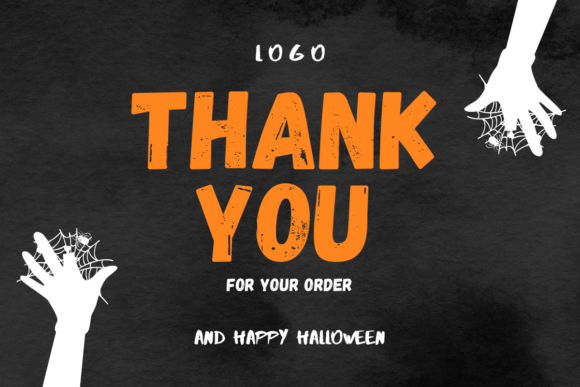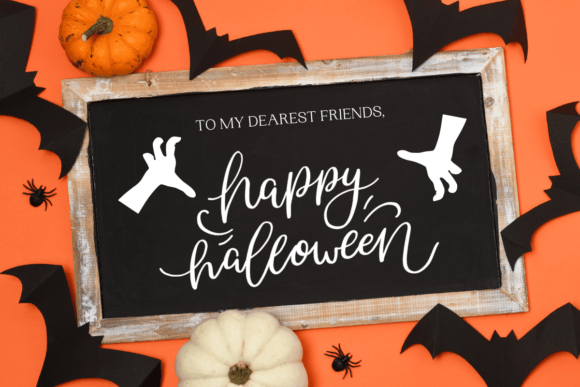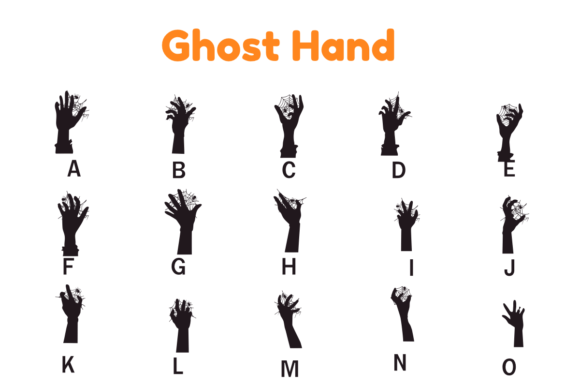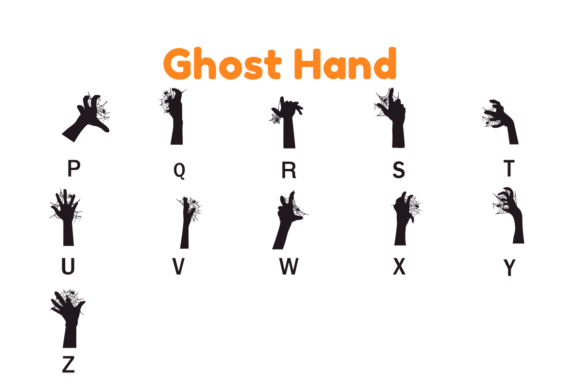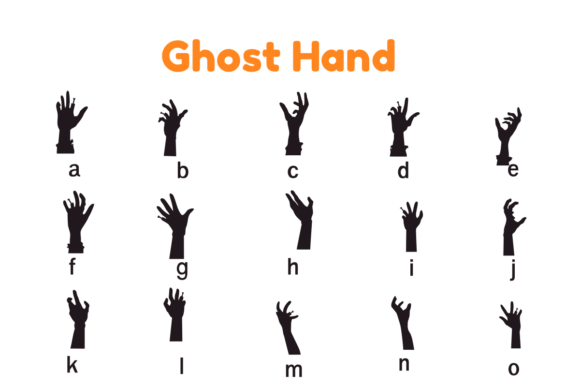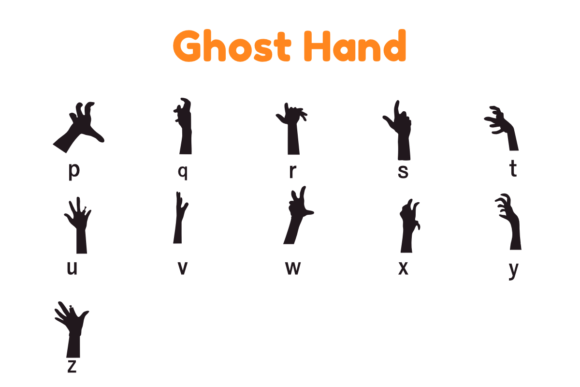
Unleash the Spook: Exploring the Creepy Charm of Ghost Hand Font
As the witching hour approaches, designers and crafters are on the lookout for unique and eerie elements to add a touch of spookiness to their projects. If you’re searching for a font that embodies the creepy and mysterious atmosphere of Halloween or haunted themes, look no further than the Ghost Hand Font. This dingbat font features hands with spider webs on the fingers, exuding a sense of eeriness that’s sure to send shivers down the spine.
The Creepy Concept: Hands with Spider Webs
The Ghost Hand Font takes a simple yet effective approach to creating a spooky design. The font features illustrations of hands with spider webs delicately woven around the fingers. The hands themselves have a haunting appearance, with a subtle skeletal undertone that adds to the overall creepiness. The spider webs, intricately designed and scattered across the fingers, bring an air of mystery and foreboding to the font.
Perfect for Halloween and Haunted Themes
Halloween and haunted themes are all about creating an atmosphere of suspense and fear. The Ghost Hand Font is tailor-made for such projects, providing a unique and eerie element that will leave your audience with a lasting impression. Whether you’re designing invitations, posters, or social media graphics, this font is sure to add a touch of macabre charm to your work.
Unique and Versatile Design
One of the standout features of the Ghost Hand Font is its versatility. The font can be used in a variety of contexts, from bold and eye-catching headlines to more subtle and intricate designs. The hands and spider webs can be scaled up or down, allowing you to experiment with different layouts and compositions. Additionally, the font can be paired with a range of other design elements, such as creepy imagery, textures, and colors, to create a truly one-of-a-kind look.
Applications for Designers and Crafters
The Ghost Hand Font offers a wealth of creative possibilities for designers and crafters. Here are a few ideas to get you started:
- Halloween Invitations: Create spooky and inviting Halloween invitations featuring the Ghost Hand Font. Pair the font with eerie imagery, such as jack-o’-lanterns, bats, or spiders, to set the tone for a howling good time.
- Haunted House Marketing: Use the Ghost Hand Font to create eye-catching marketing materials for haunted houses or haunted attractions. The font’s creepy charm is sure to grab attention and entice thrill-seekers to visit.
- Creepy Crafts: The Ghost Hand Font is perfect for crafters who enjoy making spooky decorations, such as Halloween cards, gift tags, or scrapbook pages. Use the font to add a personal touch to your crafts and make them stand out.
- Social Media Graphics: Create spooky social media graphics featuring the Ghost Hand Font. Use the font to create attention-grabbing headlines or captions that will leave your followers shivering with delight.
Tips for Using the Ghost Hand Font
To get the most out of the Ghost Hand Font, here are a few tips to keep in mind:
- Experiment with Sizes: Don’t be afraid to experiment with different font sizes to create visual interest. Large, bold hands can make a dramatic statement, while smaller, more intricate designs can add a touch of subtlety.
- Pair with Other Design Elements: The Ghost Hand Font is versatile and can be paired with a range of other design elements, such as images, textures, and colors. Experiment with different combinations to create a unique look.
- Use in Combination with Other Fonts: The Ghost Hand Font can be used in combination with other fonts to create a striking contrast. Try pairing it with a bold, sans-serif font for a jarring effect.
The Ghost Hand Font is a unique and creepy dingbat font that’s perfect for Halloween and haunted themes. With its hands featuring spider webs on the fingers, this font is sure to add a touch of eerie charm to your designs. Whether you’re a designer or crafter, the Ghost Hand Font offers a wealth of creative possibilities. So why not unleash the spook and give this font a try?